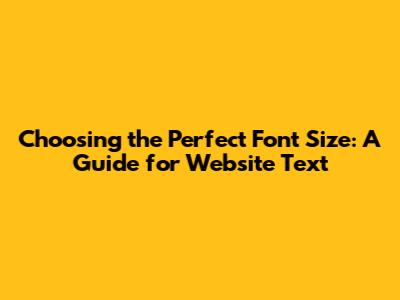
- Font Choice: Different fonts have different visual characteristics. Some fonts, like Arial or Helvetica, might appear larger at the same pixel size compared to more decorative fonts. When you choose a font, test its readability at various sizes to determine the best fit for your content. The font you select affects readability. Experiment with a few different fonts and sizes to see what works best. Consider the font's x-height (the height of the lowercase
Hey guys! Ever wondered what the best font size for website text is? Well, you're not alone! It's a super important detail that can seriously impact how your visitors experience your site. Get it right, and you've got happy readers who stick around. Mess it up, and you might see folks bouncing off your page faster than a hot potato. So, let's dive into the nitty-gritty of choosing the right font size to make your website not just look good, but also be super user-friendly.
Why Font Size Matters: The User Experience Angle
Okay, so why is this whole font size thing such a big deal, you ask? Well, it all boils down to user experience (UX). Think about it: when someone lands on your website, they're looking to find information, right? If your text is too small, they'll have to squint and strain their eyes, which is a major turn-off. Nobody wants to work hard to read! On the flip side, text that's too large can look clunky and overwhelming, making your site feel like a giant shout. Finding that sweet spot is key to a smooth and enjoyable reading experience. A good font size makes your content accessible, easy to digest, and ultimately, encourages visitors to stay longer and explore more.
Besides making your site readable, the best font size for website text is also critical for your website's accessibility. Consider users with vision impairments or those browsing on different devices. A well-chosen font size ensures that everyone, regardless of their visual abilities or the device they're using, can comfortably read your content. This is a crucial element of inclusive web design, which is super important these days. By focusing on accessibility, you're not only improving the user experience for everyone but also broadening the reach of your website. It's a win-win!
Also, think about how your font size affects the overall design and layout of your site. The font size influences the amount of space text takes up, which impacts how other elements (like images, buttons, and navigation) are arranged. A well-balanced design relies on a harmonious relationship between all visual elements. A font size that complements the other elements of your website can significantly enhance your site's aesthetics, making it more appealing and professional-looking. This harmony ensures that your website isn't just easy to read, but also visually engaging.
The Ideal Font Size: General Guidelines and Recommendations
Alright, let's get down to brass tacks: what's the magic number for the best font size for website text? While there's no one-size-fits-all answer, there are some generally accepted guidelines you can follow. For body text (that's your main content, like paragraphs), the recommended size is typically between 16px and 18px. This range is considered optimal for readability on most devices. It's large enough to be easily readable without taking up too much space. The 16px to 18px range strikes a good balance between readability and aesthetics, making your content easy on the eyes.
For headings (H1, H2, H3, etc.), you'll want to use a larger font size to make them stand out. Headings should be significantly bigger than your body text to create a clear visual hierarchy. Think sizes like 24px, 32px, or even larger, depending on the level of the heading and the overall design of your site. The goal is to make it super clear what each section is about at a glance. Using different font sizes for headings helps to visually organize your content. The use of a larger size for H1, a slightly smaller size for H2, and even smaller size for H3, create a clear structure, which makes it easy for visitors to scan your content.
It's also important to consider the device your visitors are using. Your website needs to look good on desktops, tablets, and smartphones. That's where responsive design comes in. Responsive design means your website automatically adjusts its layout and font sizes to fit different screen sizes. When designing your site, make sure to test how your text looks on various devices. You may need to adjust the font sizes slightly for mobile devices to ensure readability.
Factors to Consider When Choosing Your Font Size
Okay, so we've got the general guidelines, but what else should you consider when deciding on the best font size for website text? Several factors come into play, including the font itself, your target audience, and the overall design of your website. Let's break it down: